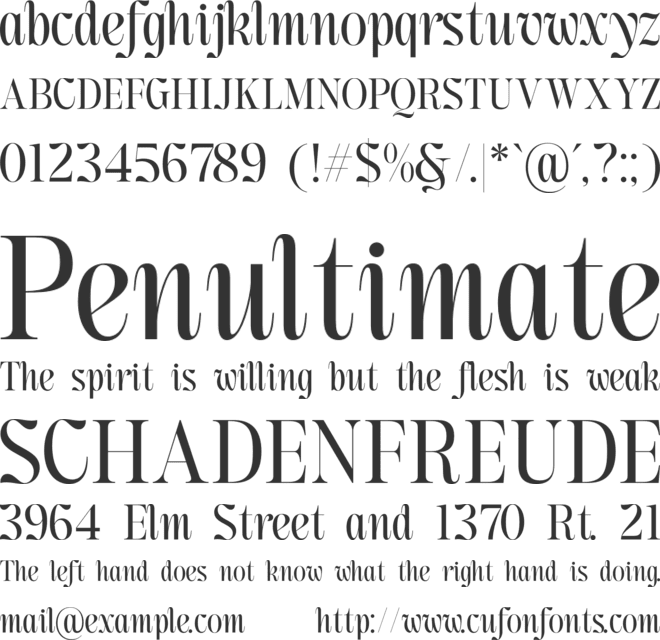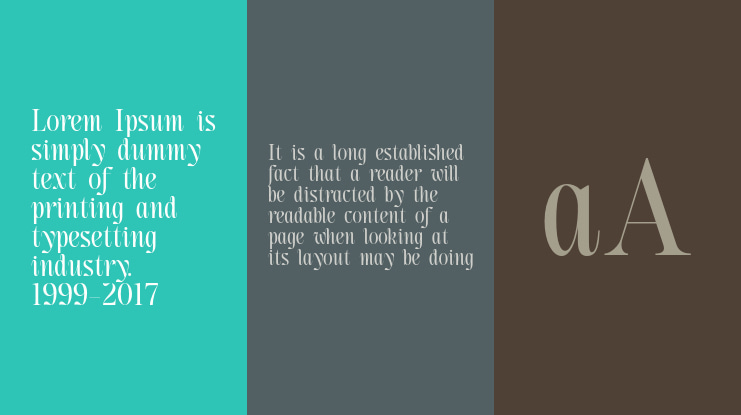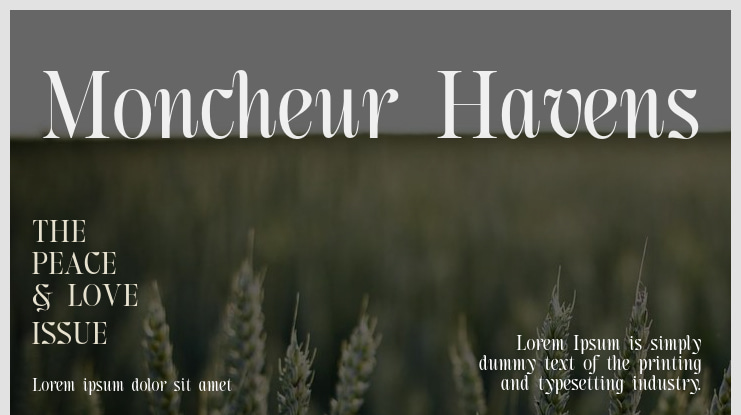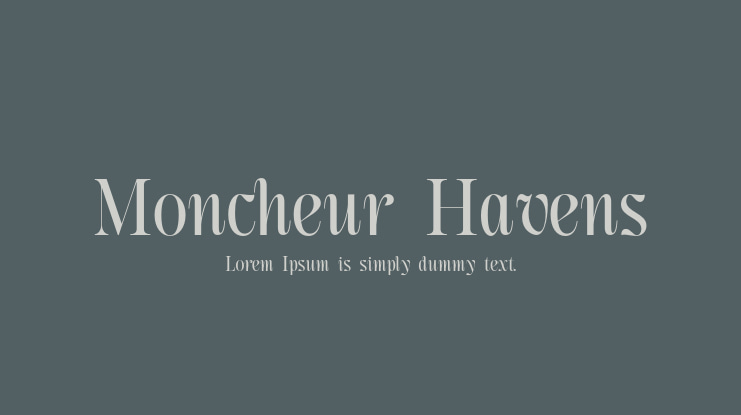
Moncheur Havens is an elegant serif font that exudes classic sophistication with a modern twist. Available in both Regular and Italic styles, this font is designed to add a touch of luxury to any design. With finely crafted details in each letter, Moncheur Havens offers a captivating and easily readable aesthetic, making it perfect for a range of projects, from branding to editorial work.